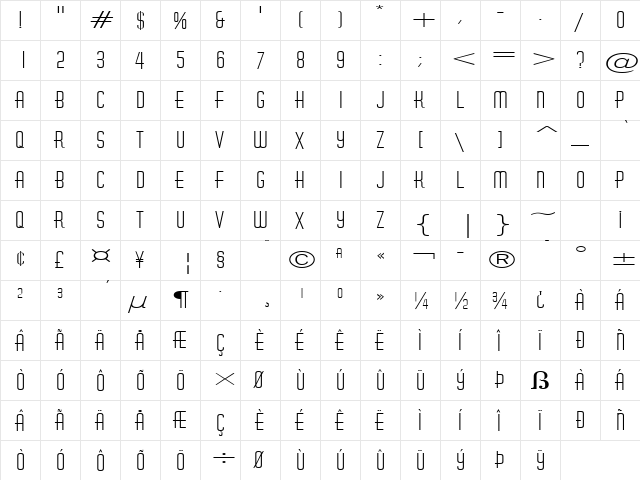
Hustle Extended Normal
Design Context for Hustle Extended Typeface
Hustle Extended is a composed and adaptable typeface that performs quietly and consistently across a wide range of design contexts.